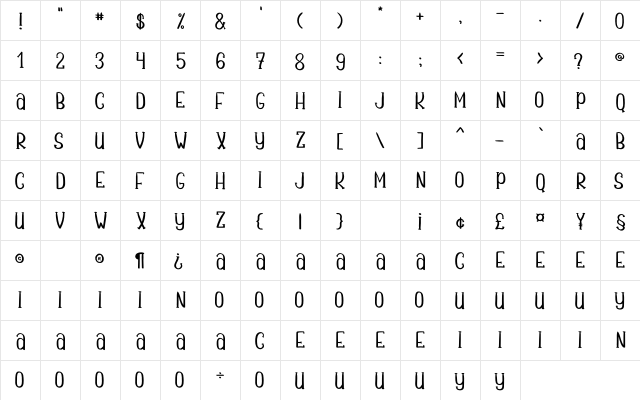
Berila PERSONAL USE Regular
Design Context for Berila PERSONAL USE Typeface
Berila PERSONAL USE offers clean, dependable letterforms without strong stylistic allegiance, making it a practical choice for designers who need flexibility.